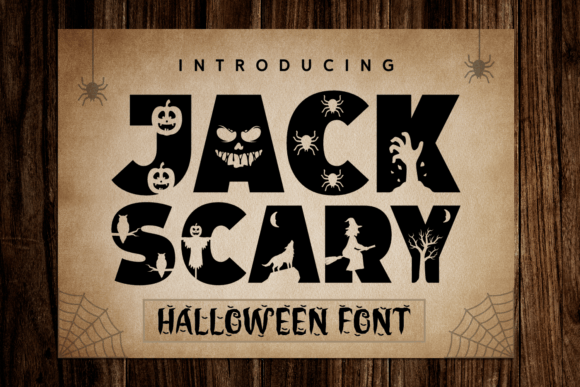
Journey into the world of Jack Scary, a bewitching display font that casts a spell of enchantment over any design. Its captivating silhouette characters, reminiscent of a moonlit masquerade, will leave your audience spellbound.
With Jack Scary, you hold the power to create captivating logos that command attention. Its bold and striking presence will make your brand stand out from the mundane, leaving an imprint that lingers in the minds of your customers.
Unleash the magic of Jack Scary in your website design, transforming it into a mesmerizing realm that captivates and enthralls. Its intricate details will weave a web of intrigue, drawing visitors deeper into your digital domain.
From travel blogs to fashion havens, Jack Scary is the font that elevates your content to new heights. Its enchanting charm will transport your readers to far-off lands, igniting their imagination and leaving them yearning for more.
Dare to embrace the allure of Jack Scary, the font that weaves a tapestry of wonder and intrigue. Let its silhouette characters dance across your designs, captivating hearts and minds. Immerse yourself in the realm of Jack Scary, and let your creativity soar to new heights.